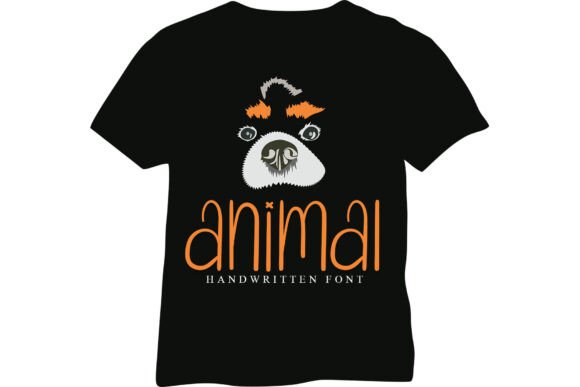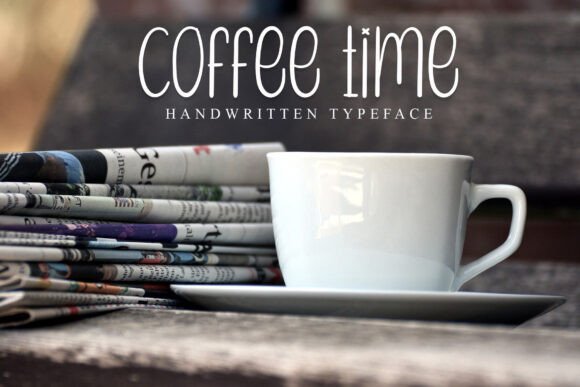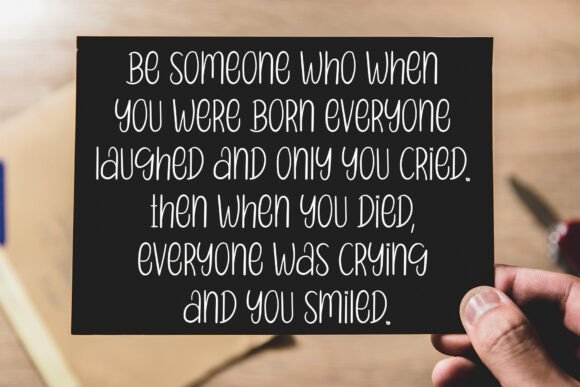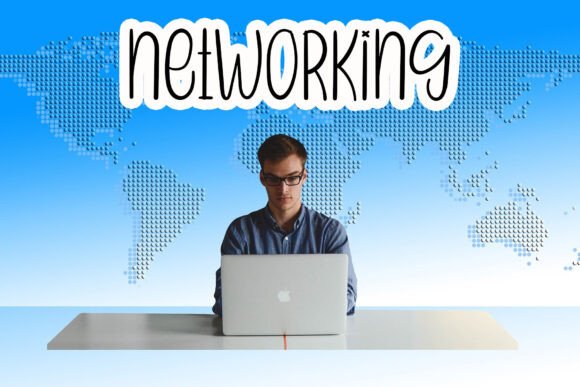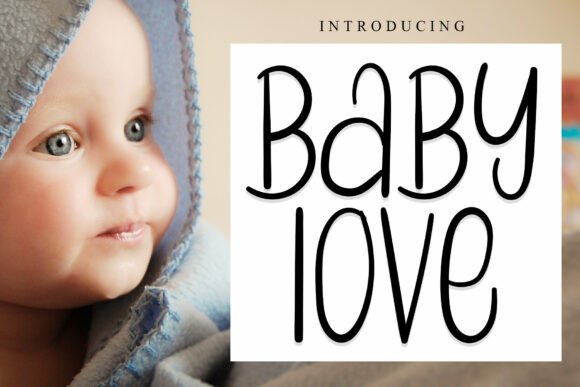
Baby Love Font: The Perfect Handwritten Touch for Your Designs
Are you looking for a font that adds a personal and elegant touch to your designs? Look no further than the Baby Love Font. This unique and beautiful font is perfect for a variety of design projects, from wedding invitations and greeting cards to billboards, logos, and business cards.
A Handmade Touch
The Baby Love Font features a varied baseline, created with a natural, hand-made touch. This gives your designs a warm and personal feel that’s sure to capture the attention of your audience. The font’s handwritten style is perfect for adding a touch of elegance and sophistication to your projects.
Perfect for a Variety of Designs
The Baby Love Font is versatile and can be used for a wide range of design projects. Here are some ideas to get you started:
- Wedding invitations: Add a touch of romance and elegance to your wedding invitations with the Baby Love Font.
- Greeting cards: Create beautiful and personalized greeting cards for any occasion.
- Billboards: Make a statement with the Baby Love Font on your billboards and outdoor advertising.
- Logos: Add a personal touch to your logos and branding materials.
- Business cards: Stand out from the crowd with unique and elegant business cards featuring the Baby Love Font.
The Baby Love Font offers a range of benefits for designers and crafters, including:
- Elegant and sophisticated designs: The Baby Love Font adds a touch of elegance and sophistication to any design.
- Versatile: The Baby Love Font can be used for a wide range of design projects, from print to digital.
Tips for Using the Baby Love Font
Here are some tips for getting the most out of the Baby Love Font:
- Experiment with different sizes and colors: The Baby Love Font looks great in a variety of sizes and colors, so don’t be afraid to experiment.
- Pair with other fonts: The Baby Love Font pairs well with other fonts, so try combining it with a bold font for headings and a clean font for body text.
- Use for display text: The Baby Love Font is perfect for display text, such as titles and headings.
The Baby Love Font is a unique and elegant font that’s perfect for adding a personal touch to your designs. With its handmade style, varied baseline, and PUA encoding, it’s easy to use and customize. Whether you’re a designer or crafter, the Baby Love Font is a great addition to your font collection.